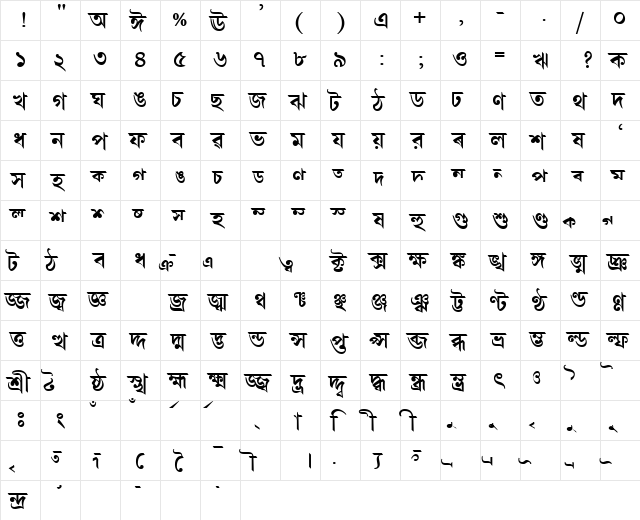
AkrutiBngSharat Bold
Design Context for AkrutiBngSharat Typeface
AkrutiBngSharat offers clean, dependable letterforms without strong stylistic allegiance, making it a practical choice for designers who need flexibility. Its bold stroke weight gives it real presence on the page.